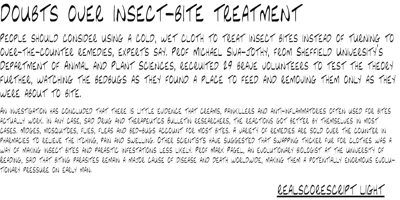
RealScore Script
RealScore Script Font
RealScore Script Font is perfect for sports team branding, athletic performance tracking, fitness app interfaces, coaching certification materials, sports analytics presentations, tournament scoreboards, competitive event signage, and professional sports documentation.
RealScore Script Font is exciting because it captures the dynamic energy and competitive precision of athletic performance through its flowing character design that embodies the authentic spirit of sports achievement and the meticulous tracking of competitive excellence. Its athletic styling and performance appeal make it the perfect choice for brands that want to communicate achievement, precision, and the transformative power of sports analytics and competitive performance.
RealScore Script Font family includes multiple sports-inspired variations: RealScore Script Regular, RealScore Script Bold, RealScore Script Light, RealScore Script Italic, RealScore Script Digital, and RealScore Script Pro, along with athletic decorative elements and sports symbols, providing designers with comprehensive tools for creating authentic sports and performance-themed brand experiences.
When exploring sports typography solutions, RealScore Script Font stands out as the premier choice for designers working on athletic and performance projects that require genuine sports sophistication and competitive appeal. This dynamic typeface embodies the essence of athletic achievement while offering the technical precision that contemporary sports organizations and fitness technology companies require. The font's performance character and sports authenticity create immediate connections with audiences who appreciate athletic excellence and competitive achievement.
Sports professionals consistently rely on RealScore Script Font for projects requiring authentic athletic sophistication and powerful performance appeal. Its expertly crafted letterforms feature sports-inspired influences that work exceptionally well in both large-scale stadium displays and intimate fitness tracking application interfaces. The font's ability to convey competitive excellence and athletic precision while maintaining strong brand recognition makes it invaluable for comprehensive identity systems in the sports analytics, fitness technology, and athletic performance sectors.
Whether you're developing sports team identities, creating fitness technology marketing materials, or designing athletic performance presentations, RealScore Script Font delivers the authentic sports character and competitive appeal that resonates with audiences who embrace athletic achievement and performance excellence. Its sports significance and dynamic design ensure your projects capture the precise tracking of athletic success while maintaining contemporary professional standards that attract modern athletes and sports analytics enthusiasts.